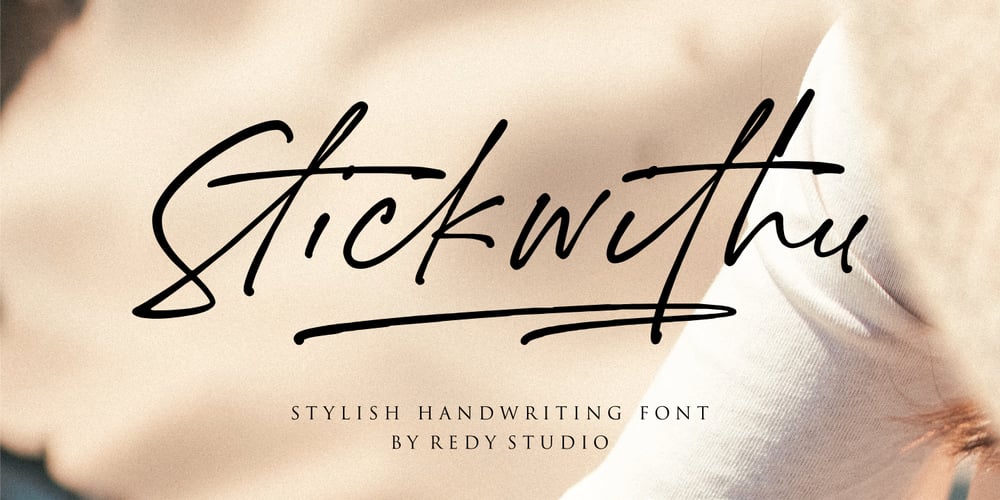
Stickwithu Font Family was designed by Nurul Fajri Redy and published by Redy Studio. Stickwithu contains 1 styles and family package options. the name Stickwithu was inspired by the title song Stickwitu sung by The Pussycat Dolls which was very popular in the early 2000s. Stickwithu has been designed to make any project look like it was handwritten by hand. a simple yet modern handwritten typeface that’s perfect for adding personality to your typographic design. With its intersecting lines and decorative shapes, Stickwithu gives you the perfect look for use in logos, branding, wedding invitations and stationery, social media posts, and even handwritten quotes. That’s what we’ve done with Stickwithu and want to share with you. We hope you find something unique that will add personality and character to your designs.Feel free to give me a message if you have a problem or question. Thank you so much for taking the time to look at one of our products.~Redy